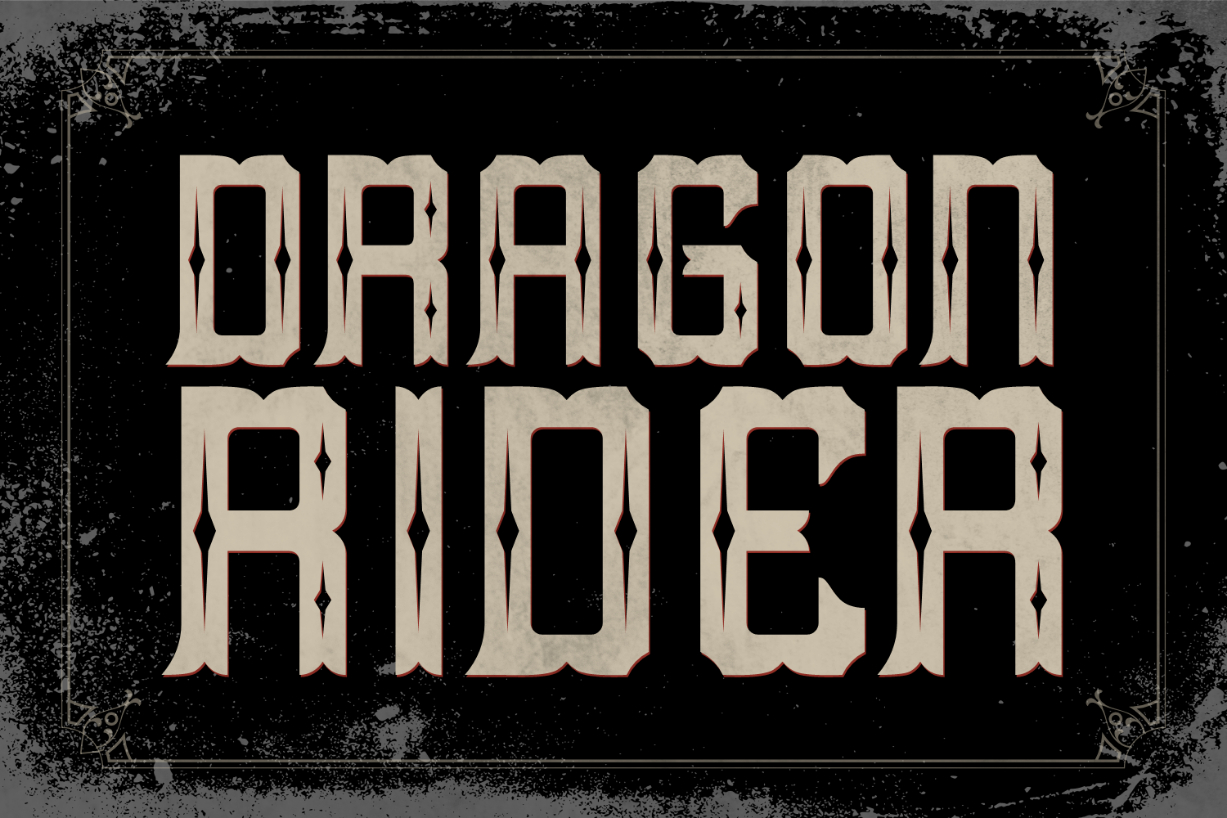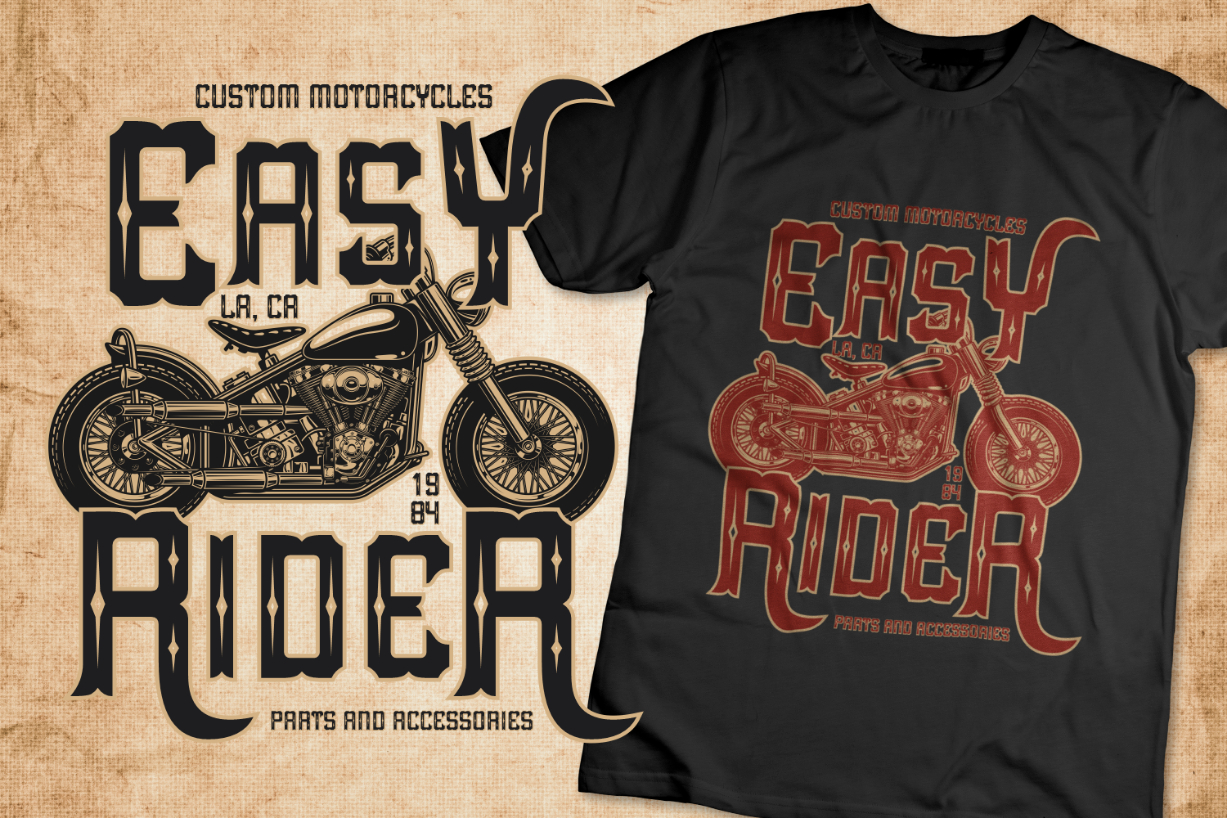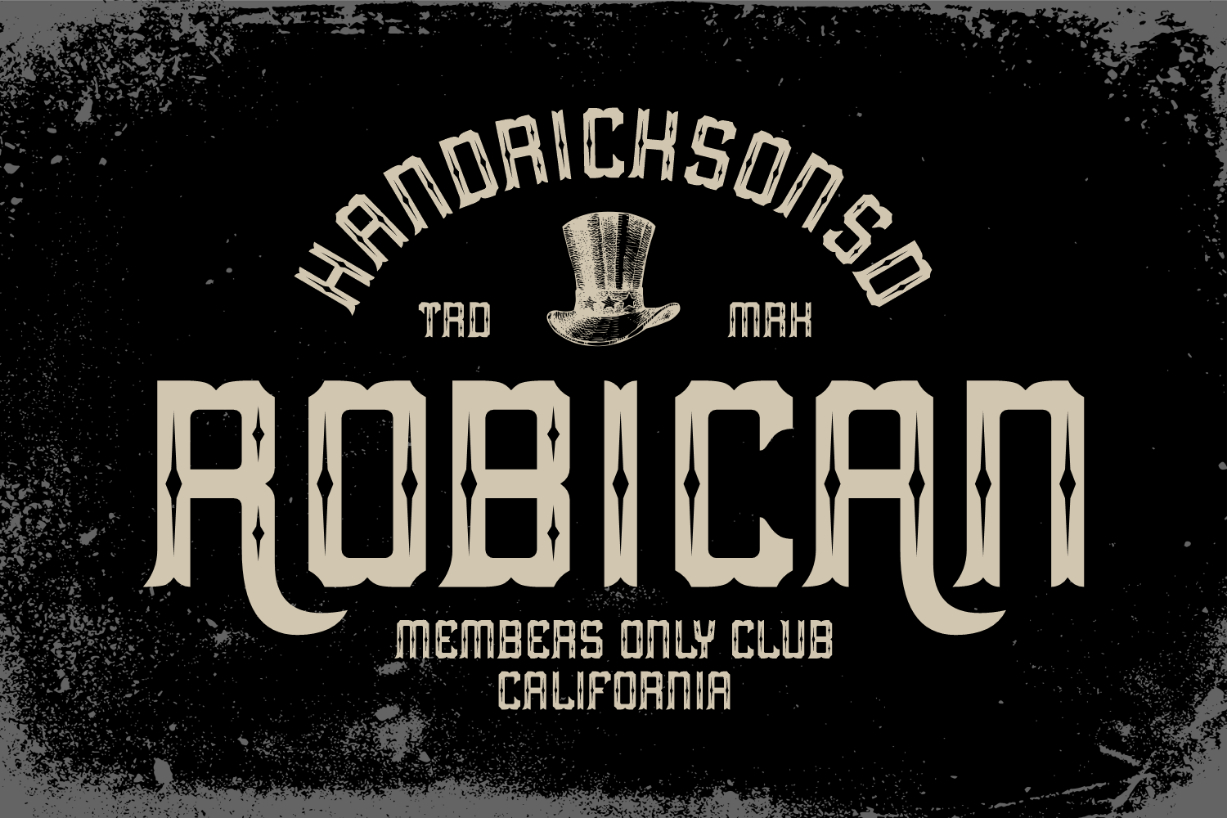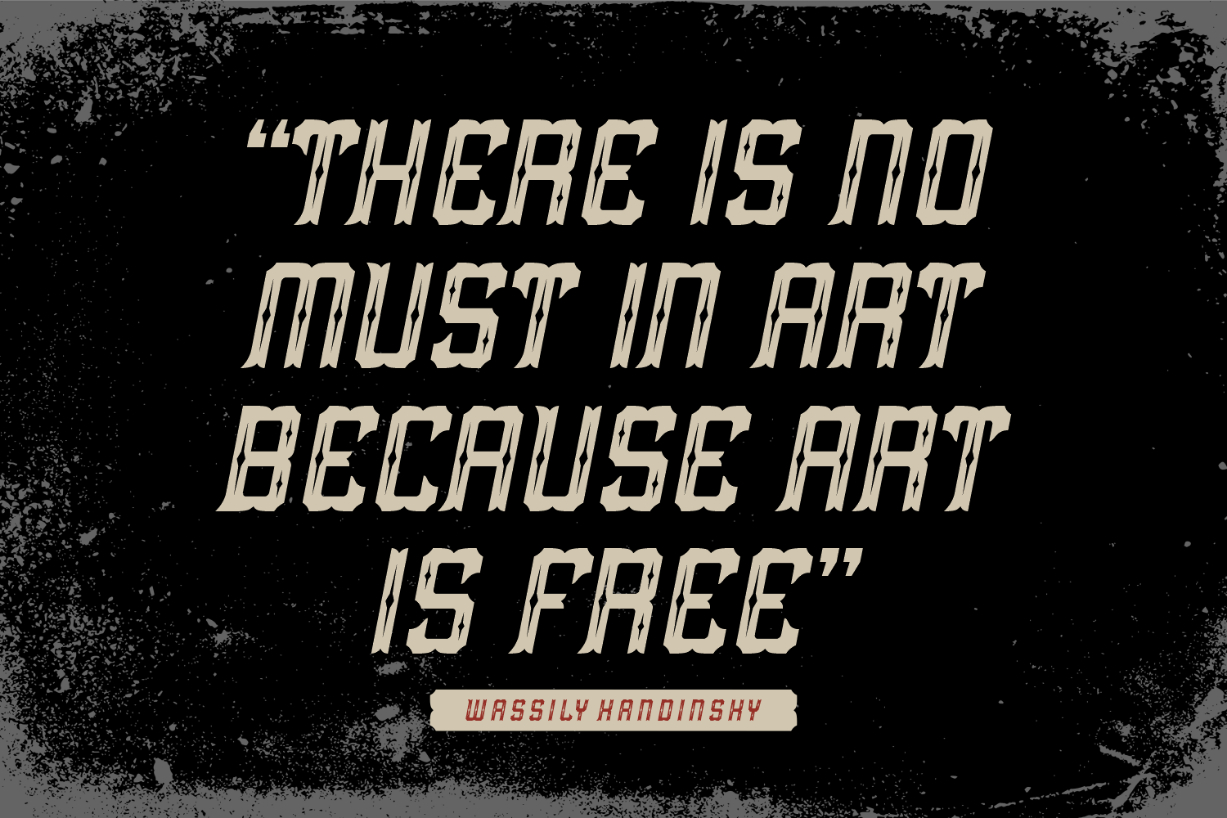
Dragon Rider Font
About Dragon Rider Font
Dragon Rider is a vintage blackletter font with a classic aesthetic. These uniquely stylized characters are an excellent choice for your next creative project! Add this font to your library now, and use it to create striking t-shirts, posters, signage, banners, logos, headers, titles, and more.